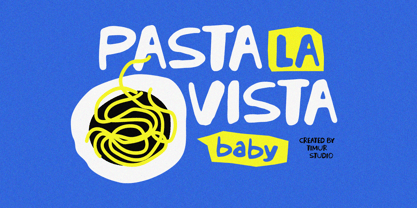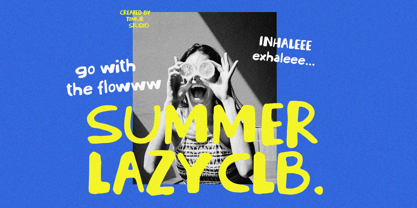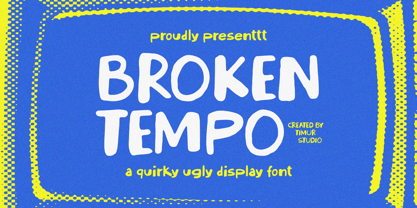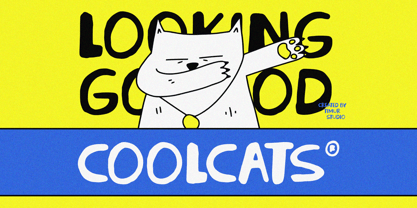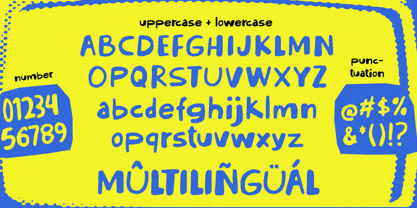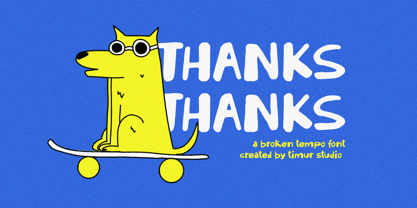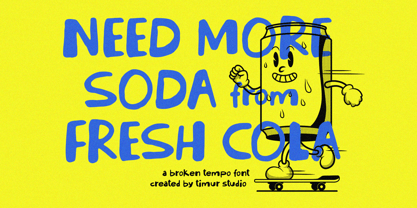
Broken Tempo
by Timurtype
The Broken Tempo Font Family was designed by Wara Sigit Tri Pamungkas and published by Timurtype. Broken Tempo contains 1 styles. More about this family
Introduced by Timurtype Studio!
Broken Tempo is a Quirky Ugly Display Font
Broken Tempo is a quirky, hand-drawn display font inspired by vintage player-piano rolls. With its playful irregularities and nostalgic charm, it adds a lively, offbeat rhythm to any design. Perfect for posters, album covers, or anything needing a touch of retro personality.
Broken Tempo Font also supports multilingualism
Designers: Wara Sigit Tri Pamungkas
Foundry: Timurtype